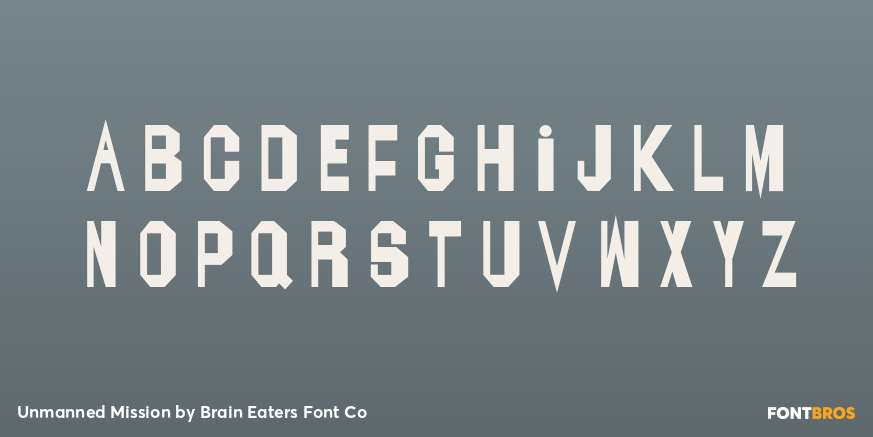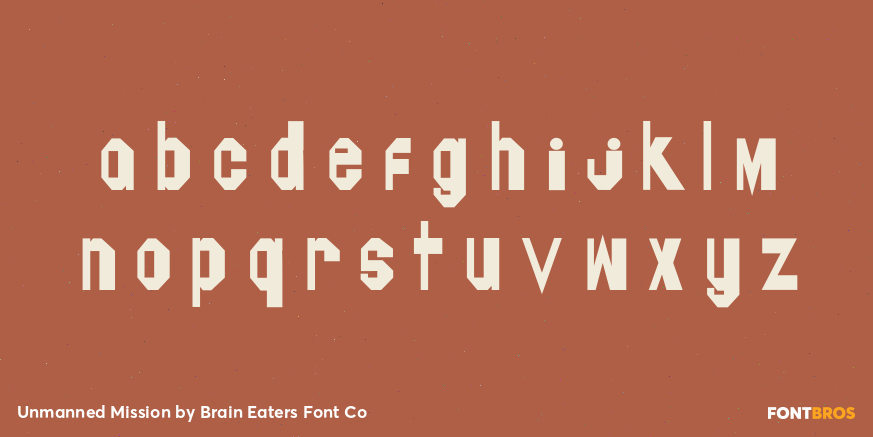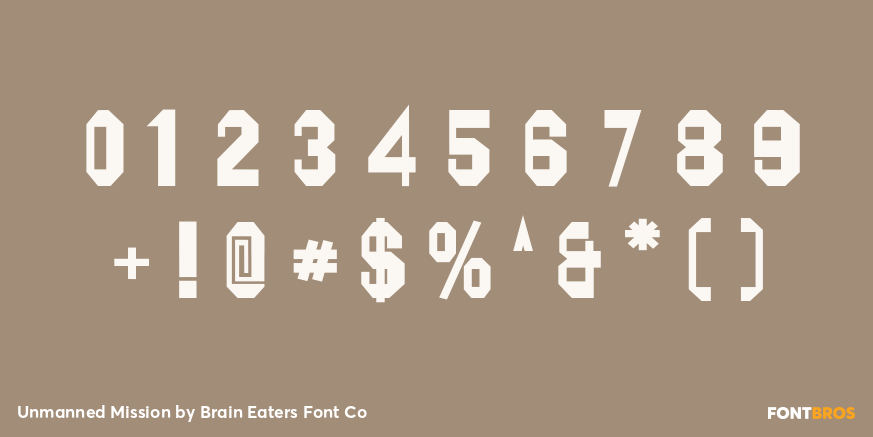
Unmanned Mission
Font Family by Brain Eaters Font Co
Unmanned Mission is a fun, wacky sans serif with a futuristic edge. Its mix of regular, bold, slanted, and back-slanted styles gives the family an energetic, offbeat feel that stands out right away, making it a strong choice when you want display type with motion and personality.
Sold as a 6-style family from Brain Eaters Font Co, it includes Regular, Bold, Slant, Slant Bold, Back Slant, and Back Slant Bold. That range makes it easy to build louder headlines, playful logos, attention-grabbing posters, and branding that leans modern, quirky, or space-age.
If your project calls for type that feels lively, unusual, and a little futuristic, this family brings plenty of visual punch without losing its clean sans serif foundation.